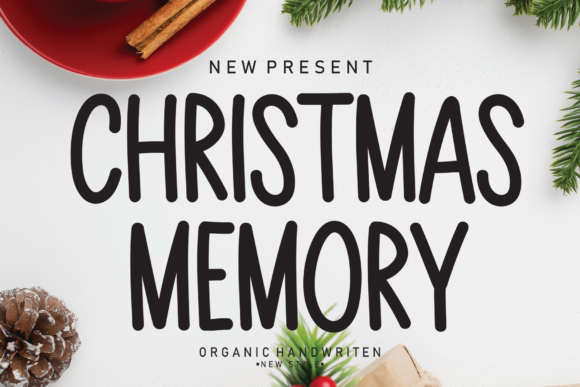
The Magic of Christmas Memory Font: A Designer’s Delight
It’s the most wonderful time of the year, and as designers, we’re often on the lookout for that perfect font to make our holiday projects shine. I still remember the year I was working on a Christmas-themed chalkboard design for a client, and I just couldn’t find the right font to capture that cozy, hand-written feel. That’s when I stumbled upon Christmas Memory Font, and it instantly became my go-to for all things festive.
Christmas Memory Font has been a game-changer for my holiday designs, but like any font, it’s not without its quirks. Here’s the lowdown:
• ✨ The authentic, hand-written look that adds a personal touch to any design
• ✅ Easy to read, even at smaller sizes
• 🎉 Perfect for chalkboard quotes, teaching materials, and holiday crafts
• 💻 Works beautifully with OpenType features and glyphs
• 🤔 Limited character set compared to some other fonts
• ⚠️ Not ideal for body text or long paragraphs
The Story Behind Christmas Memory Font
While the origins of Christmas Memory Font are shrouded in mystery, it’s clear that the designer was inspired by the nostalgia of handwritten holiday cards and chalkboard decorations. The result is a font that’s both simple and charming, perfect for adding a personal touch to your designs.
Q: What type of designs is Christmas Memory Font best suited for?
A: Christmas Memory Font is perfect for holiday designs, chalkboard quotes, teaching materials, and crafts.